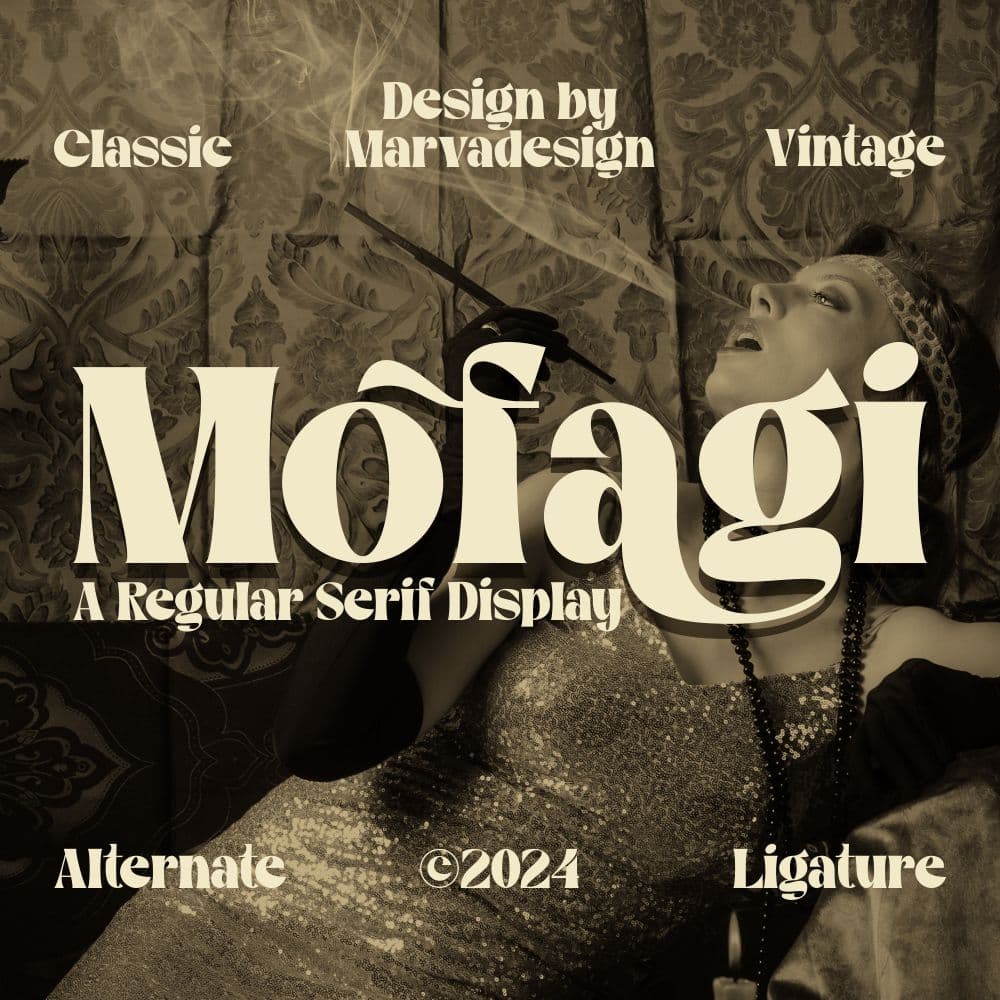
<p>Introducing <strong>Mofagi</strong> typeface is a refined and elegant serif font that seamlessly blends classical sophistication with modern aesthetics. Its design is characterized by a striking contrast between thick and thin strokes, giving it a bold yet graceful presence. The letterforms exhibit a balance of sharp, angular serifs and smooth, flowing curves, which create a visually captivating and dynamic effect.<br>Mofagi’s distinctively high-contrast style makes it particularly suitable for upscale branding, editorial layouts, luxury packaging, and artistic typography. The uppercase letters are commanding and sophisticated, ideal for making a statement in headlines or logotypes. Meanwhile, the overall structure of the typeface maintains a sense of fluidity, allowing it to adapt well to various design applications.<br>The well-proportioned kerning and spacing enhance readability while maintaining an air of exclusivity. Its aesthetic versatility makes it an excellent choice for designers seeking a font that embodies both classical elegance and contemporary refinement.</p>